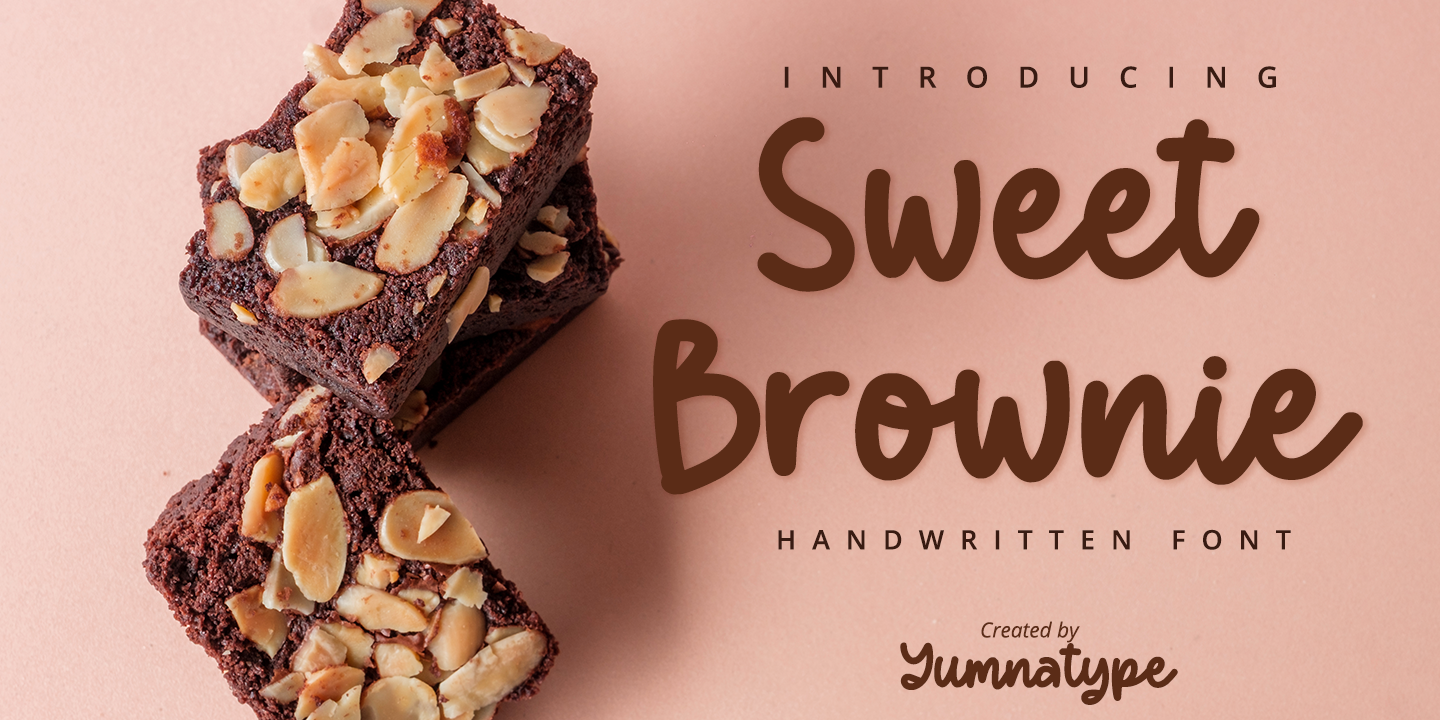
Sweet Brownie Font Free Download is a playful and charming handwritten typeface that brings warmth and creativity to any design project. With its smooth curves, casual strokes, and friendly personality, this font is perfect for greeting cards, branding, packaging, social media posts, and invitations that need a personal and cheerful touch.
The natural and easy-to-read letterforms of Sweet Brownie make it ideal for both digital and print designs, offering a relaxed yet stylish look. Whether you're crafting fun promotional materials or heartfelt personal projects, Sweet Brownie Font Free Download adds an inviting and delightful feel to your work.